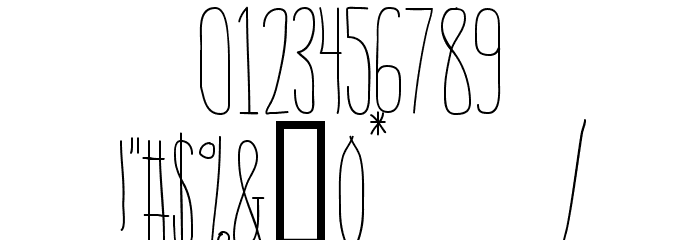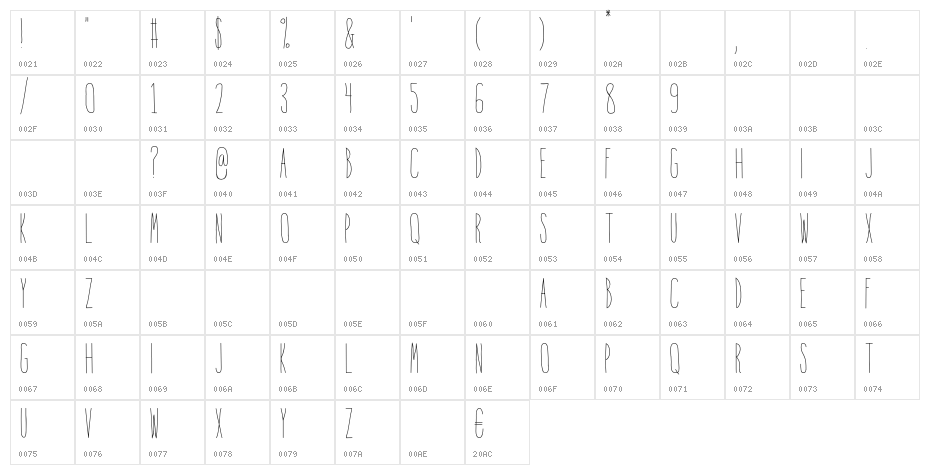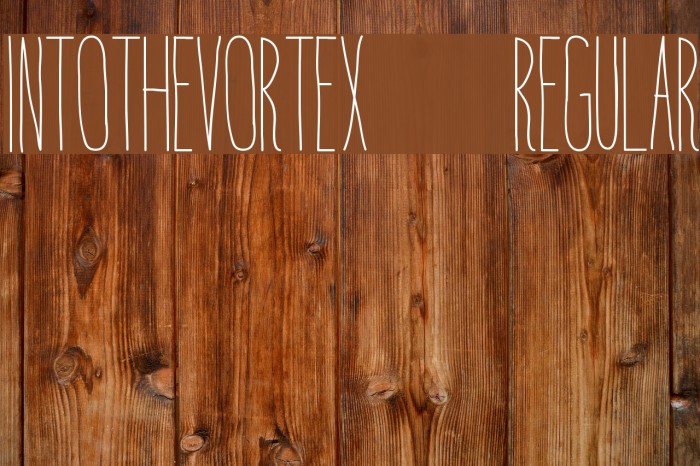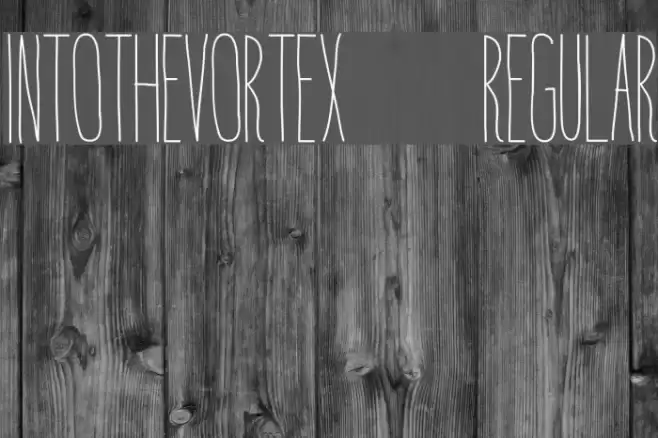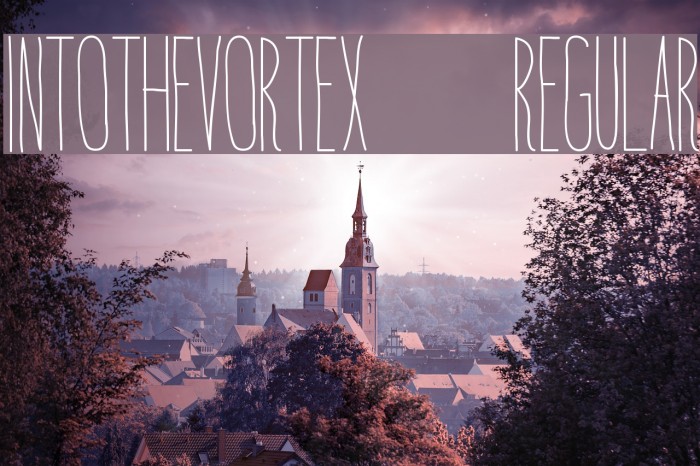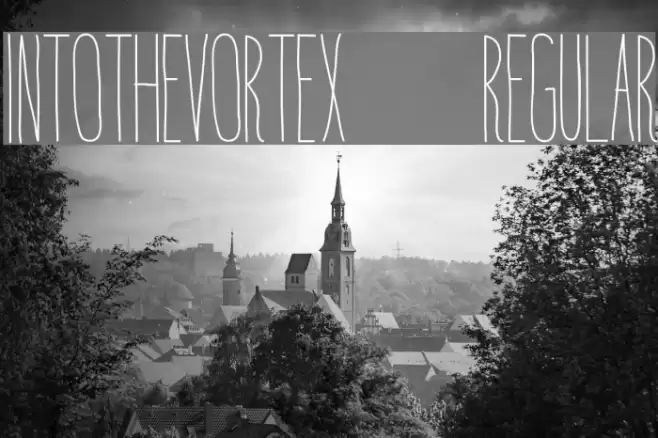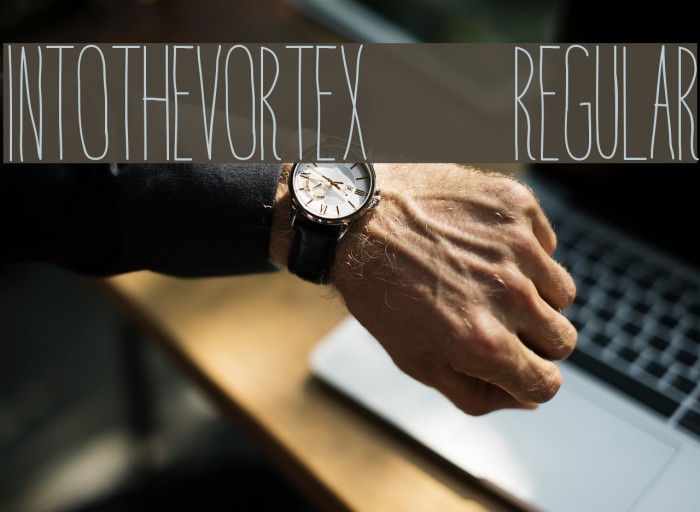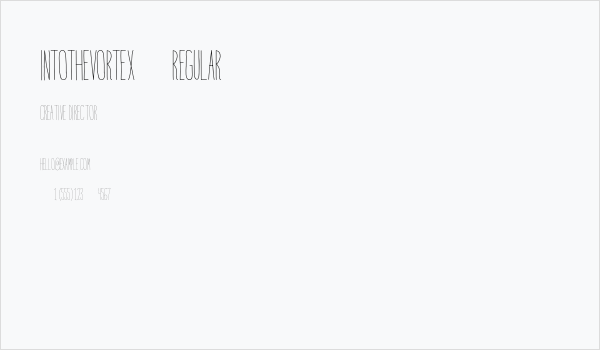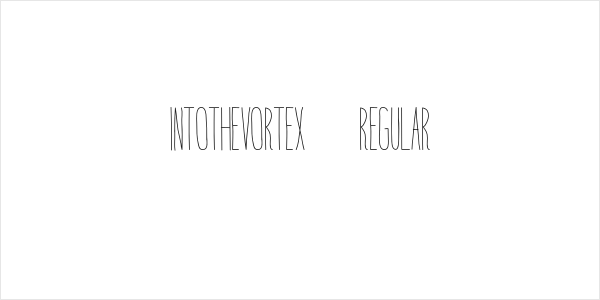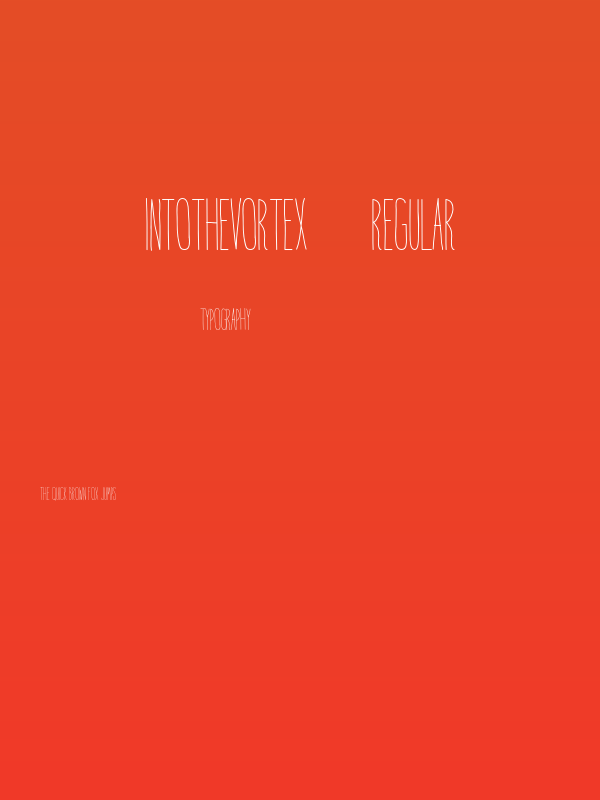
IntotheVortex-Regular Font
IntotheVortex-Regular Description
This font features an elongated and narrow design, characterized by its tall and slender letterforms. The strokes are consistent in width, giving it a uniform appearance. The uppercase and lowercase letters maintain a cohesive style, with a slight whimsical touch due to the extended ascenders and descenders. The numerals follow the same narrow and tall structure, ensuring readability while maintaining the font's unique aesthetic. Special characters are designed to complement the overall style, adding versatility to its use. This font's distinctiveness lies in its ability to convey elegance and modernity, making it suitable for creative and artistic projects.